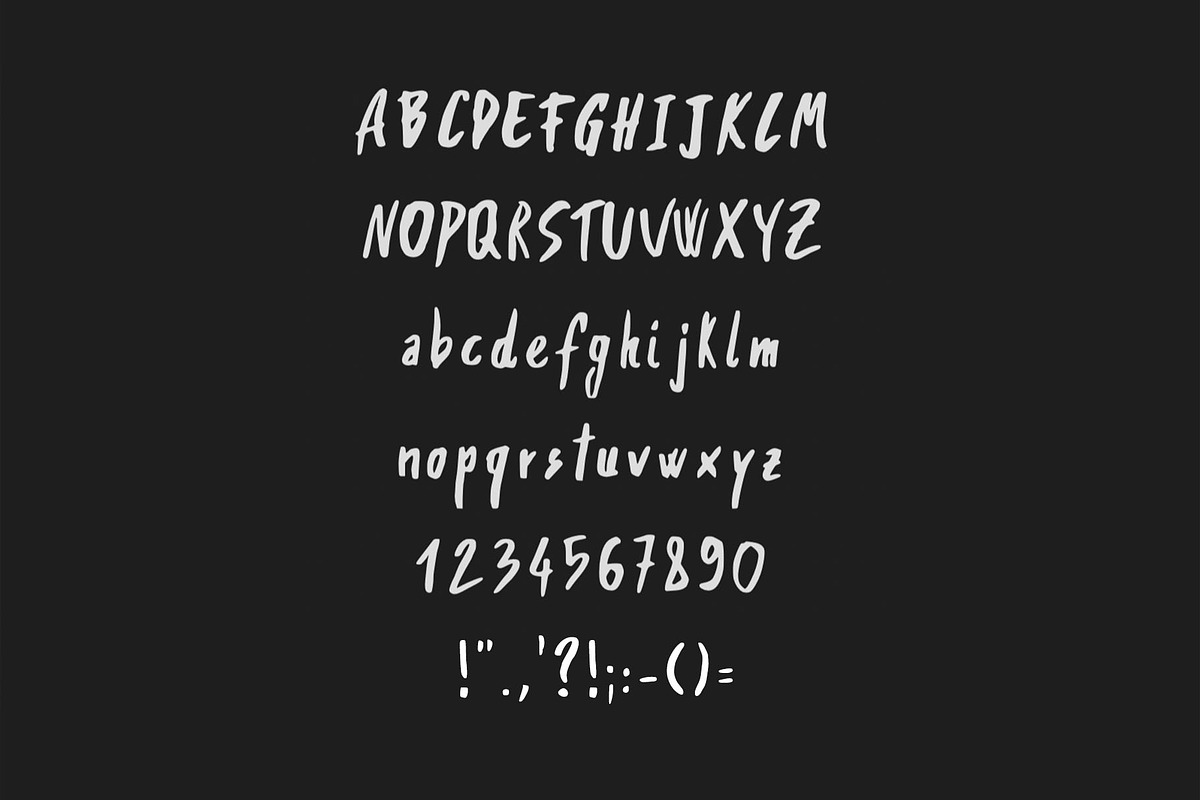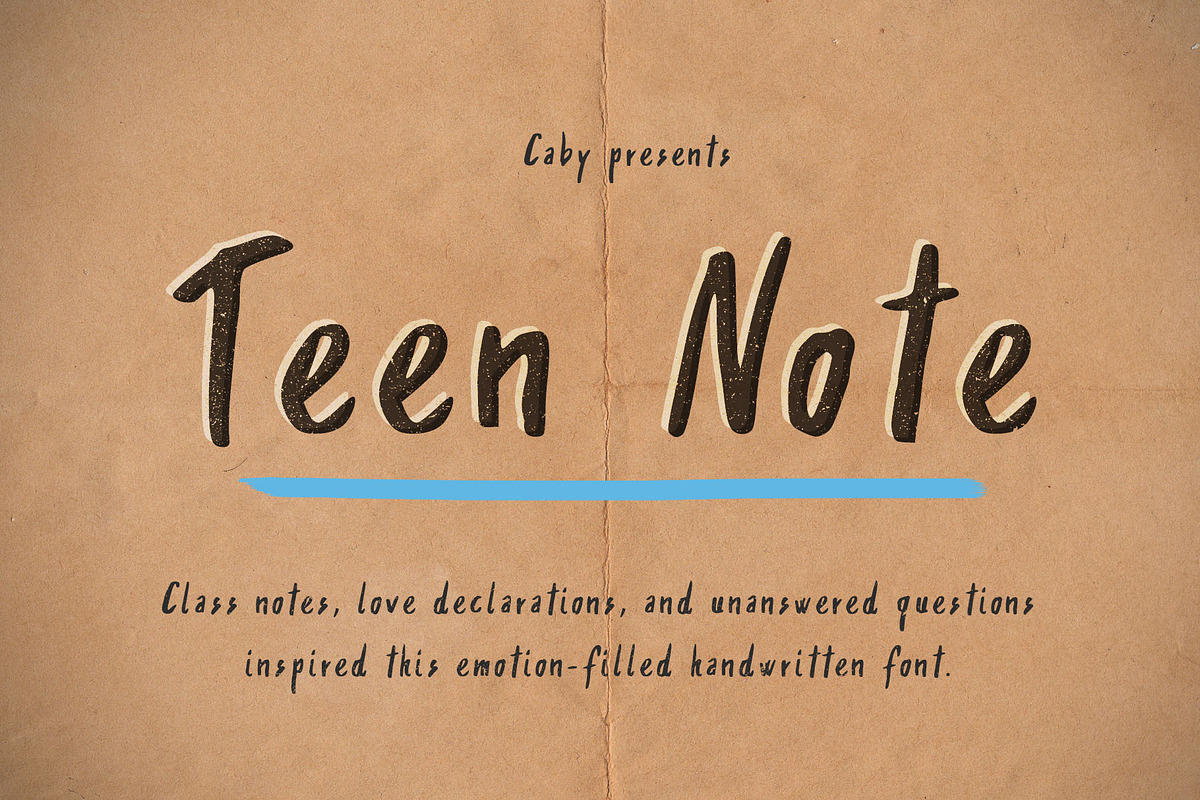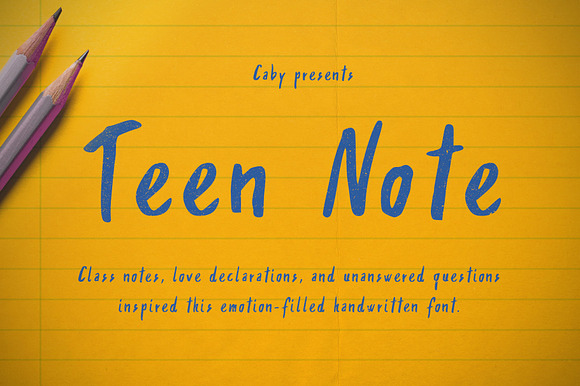
Teen Note - Handwritten Font
A fresh and nostalgic handwritten font for all your heartfelt needs. Birthday card, love letter, or a simple message, this font will help create a funky and genuine mood.
Teen Note font is composed by:
Uppercase characters;
Lowercase characters;
A basic set of 13 glyphs.